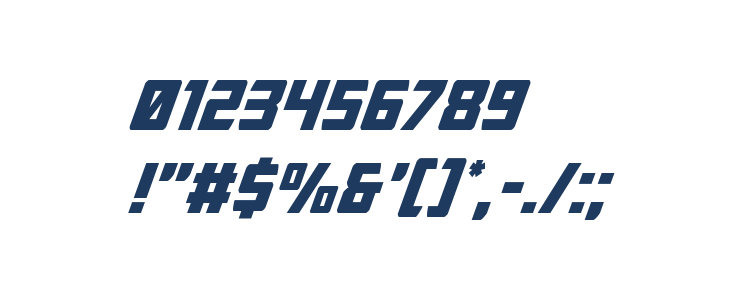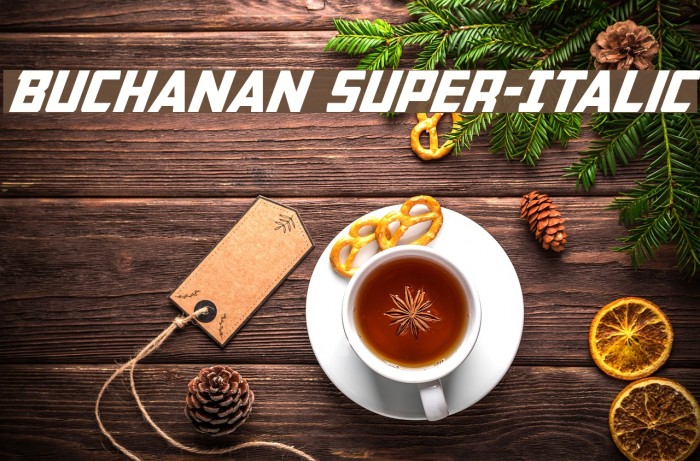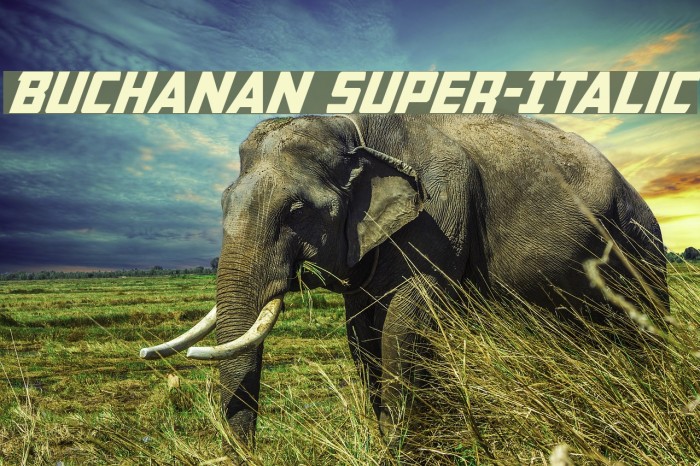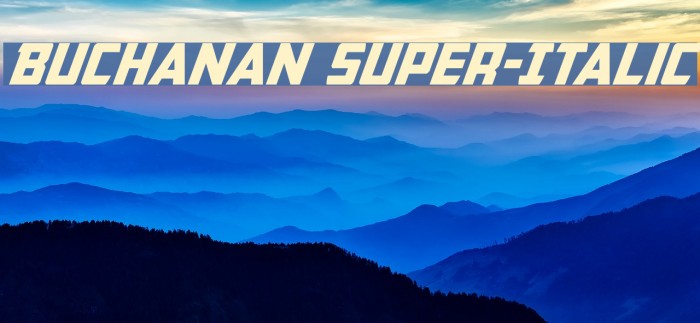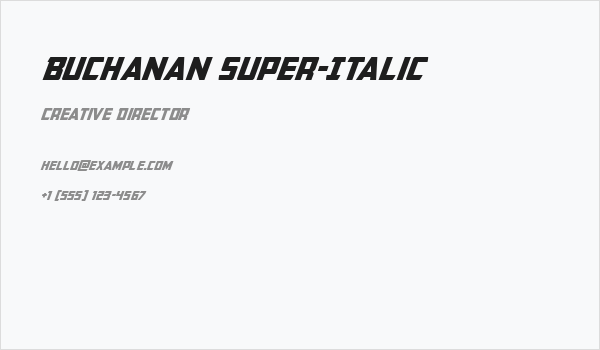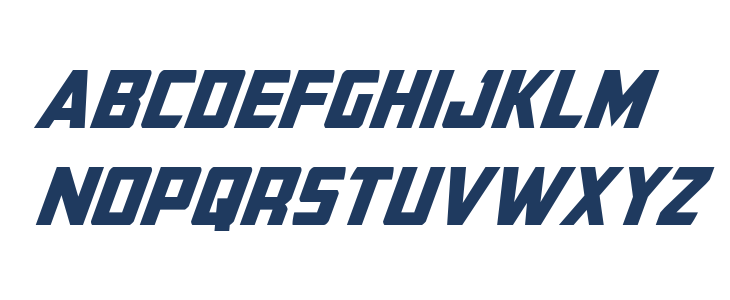
Buchanan Super-Italic Font
Buchanan Super-Italic Description
This font exhibits a bold and dynamic style, characterized by its italicized and angular letterforms. The strokes are thick and consistent, providing a strong visual impact. The characters are slightly condensed, giving a compact appearance that enhances readability while maintaining a distinctive flair. The slanted orientation adds a sense of motion and energy, making it suitable for attention-grabbing designs. The numerals and special characters follow the same stylistic cues, ensuring uniformity across all elements.